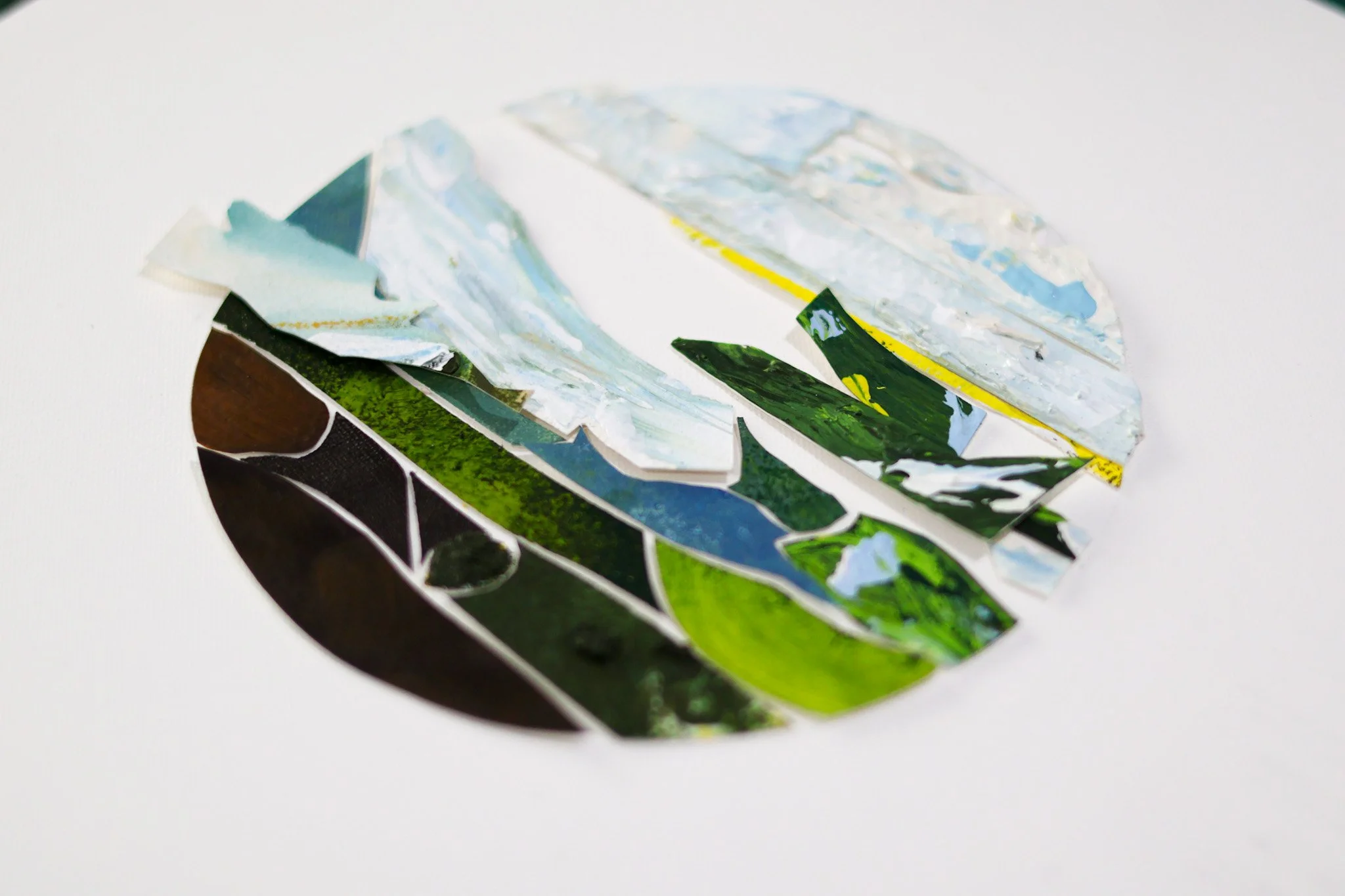
NUR SYUHADA JAAFAR | Wholeness of the Earth
ARTIST | Nur Syuhada Jaafar
TITLE | Wholeness of the Earth
Wholeness of the Earth embodies transformation and renewal. Made from fragments of trial paintings, it celebrates beauty in imperfection. Inspired by recycling, each piece is reassembled into a cohesive whole, echoing nature’s renewal. This artwork teaches us to value every step, trusting imperfections to enrich the final creation.
MEDIUM | Gouache & metallic paint for lettering, gouache & shaping paste for collage
About the artist
Nur Syuhada Jaafar
Since young, Syuhada has always loved art, though it was never seen as a practical career path. But she kept her passion alive by diving into handmade cards and scrapbooking. A career break in 2016 led her to a calligraphy workshop, and she has been in love with calligraphy ever since. Eight years later, she transitioned from an accounts executive surrounded by numbers and reports to a full-time calligraphy artist and instructor. 'I am grateful to have transformed this passion into her life’s work,' she shares.